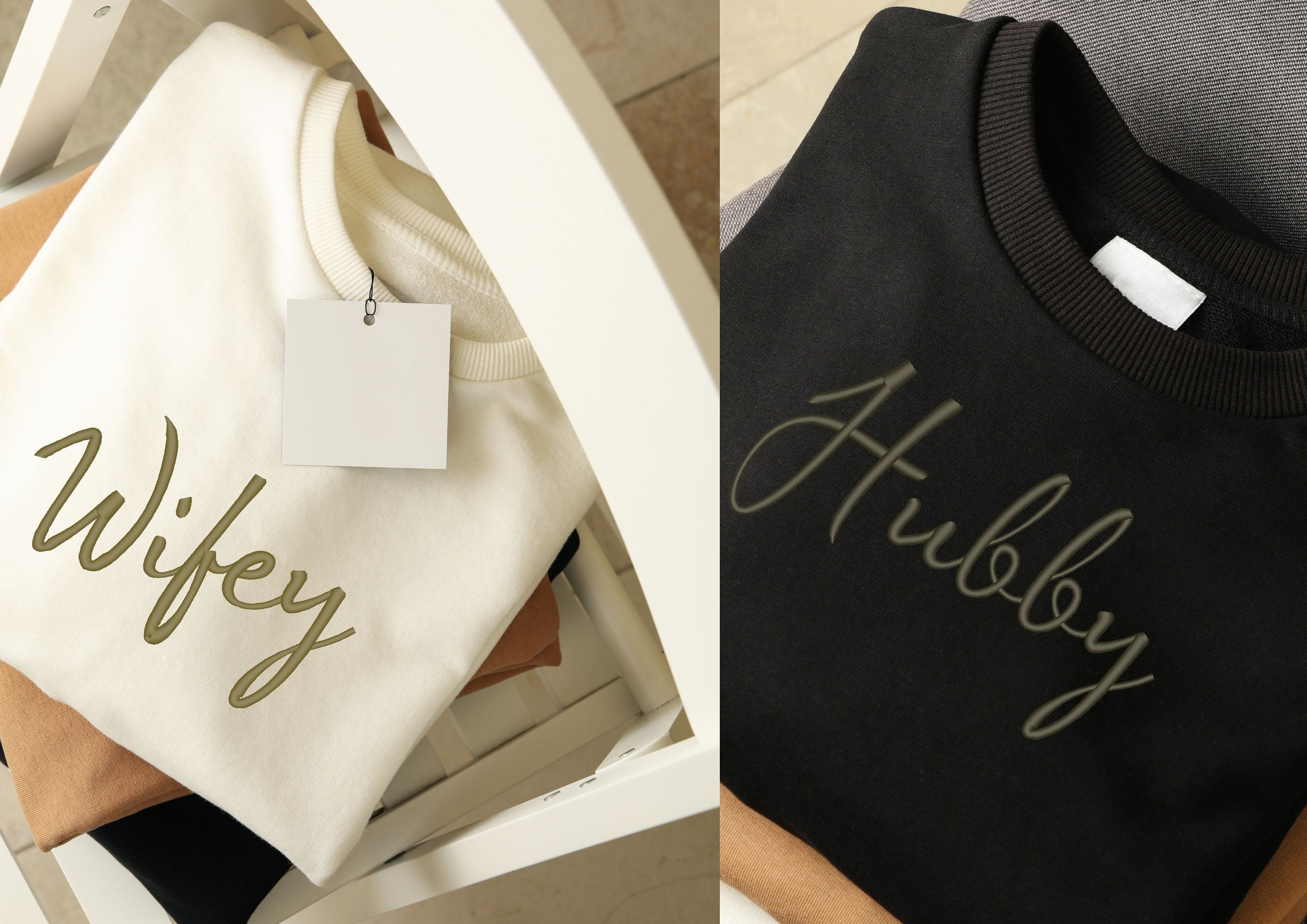
Married couple hoodies handwritten cursive Font alphabet machine embroidery designs sizes from 1.6 thru 8.6 inches, monogram name letters BX
Satin stitch Font
Uppercase and lowercase letters, and numbers.